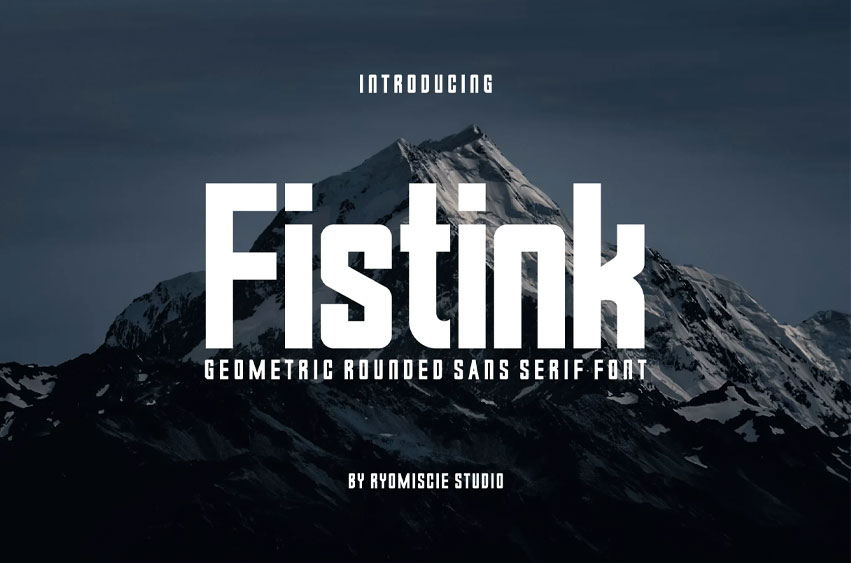
Fistink Font Modern Sans Serif Font is a bold and authentic display font.
The font is suitable for any branding project like logo, esport, and many more. outstanding in a wide range of contexts.